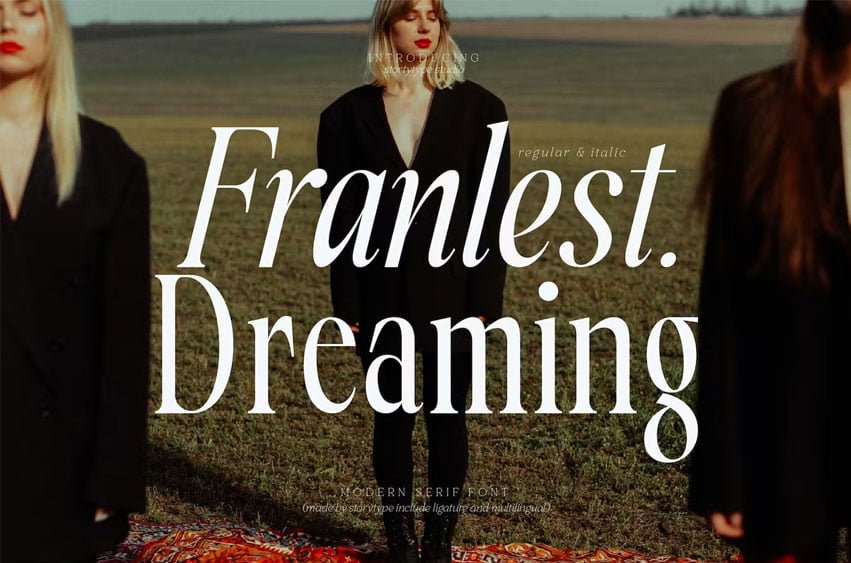
Franlest Dreaming Font is suitable to complement your digital and printed creative products. This font is perfect for posters, social media posts, branding, personal projects, etc.
Franlest Dreaming Font Preview